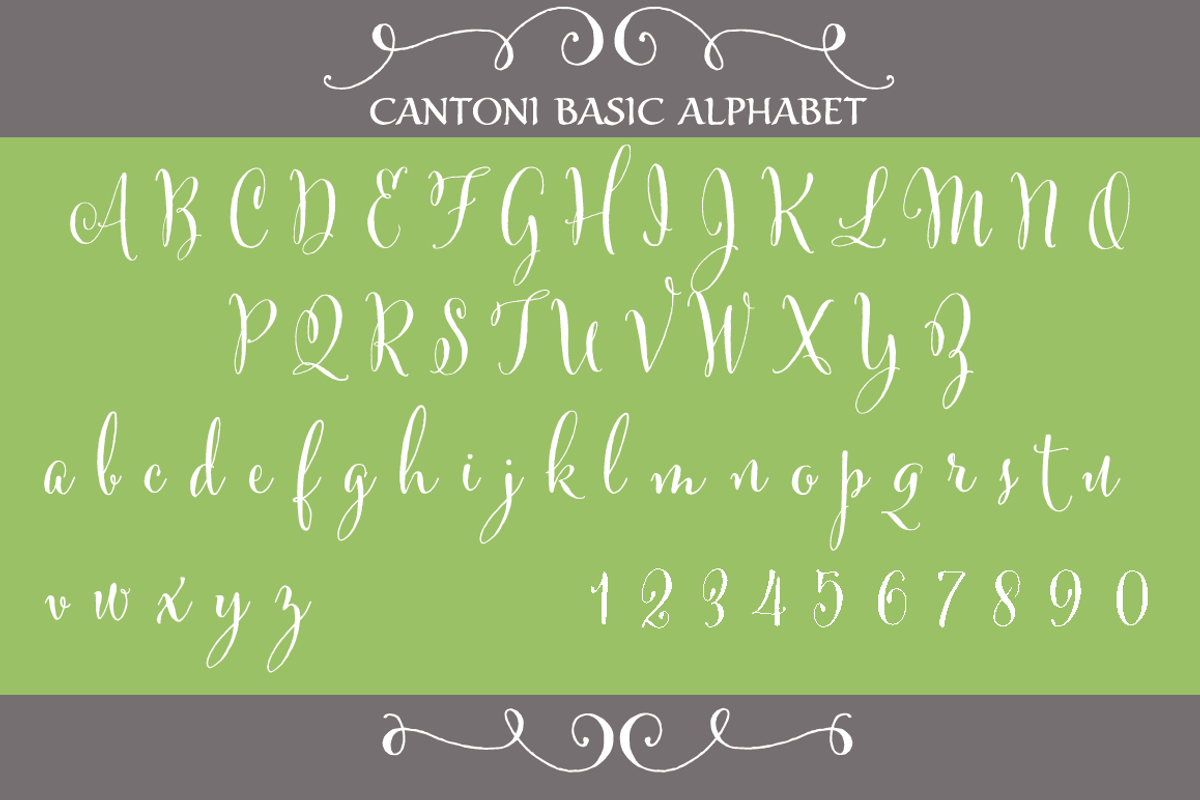
Cantoni Hand Lettered Font
Cantoni Hand Lettered Font by Debi Sementelli is a font selected for branding, posters, packaging, typography.
Why Cantoni Hand Lettered Font is worth a look
Cantoni Hand Lettered Font by Debi Sementelli fits naturally into Branding, posters, packaging, typography.